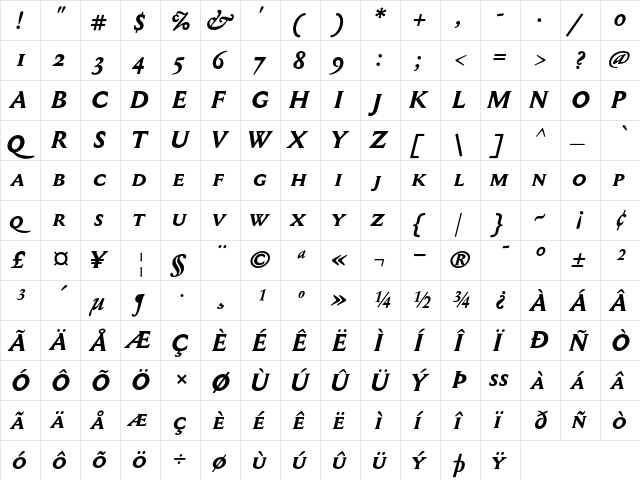
Mediaeval SCOSF Bold Italic Font Preview
| Foundry | Frantisek Storm |
| Designer | Frantisek Storm |
Design Context for Mediaeval SCOSF Typeface
Mediaeval SCOSF offers clean, dependable letterforms without strong stylistic allegiance, making it a practical choice for designers who need flexibility. The dynamic lean of this cut emphasises speed and emphasis in any layout. Its bold stroke weight gives it real presence on the page.
Pro Tip: Try Mediaeval SCOSF for annotation and caption copy alongside an upright companion — the contrast in angle creates a dynamic but ordered typographic system.